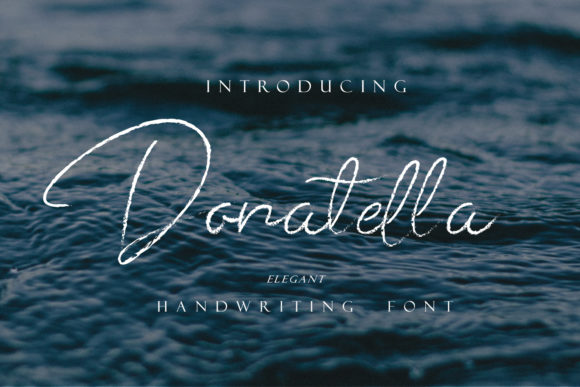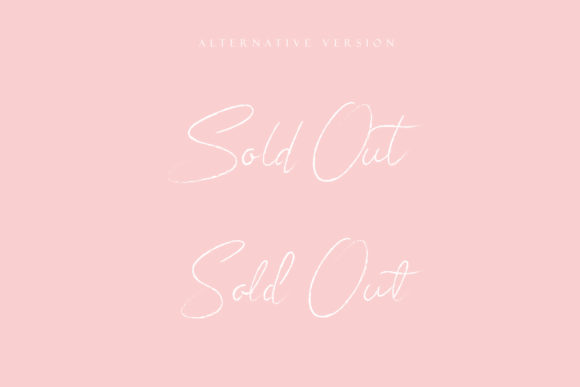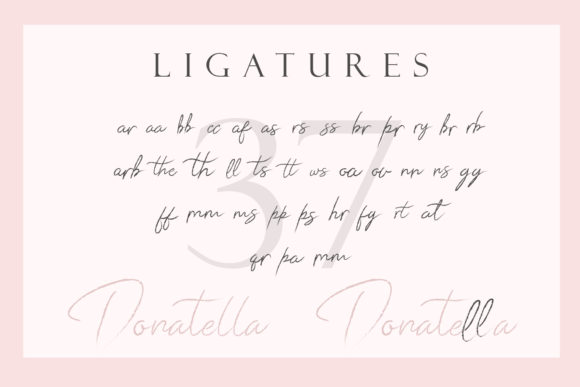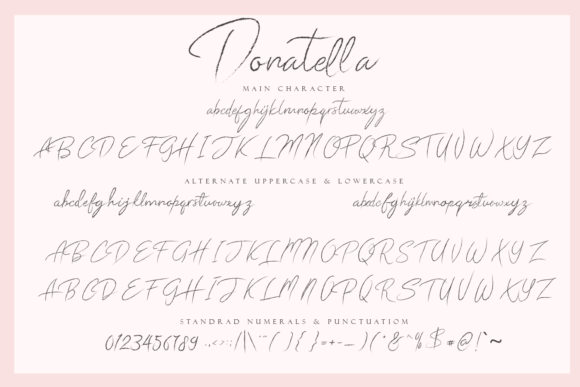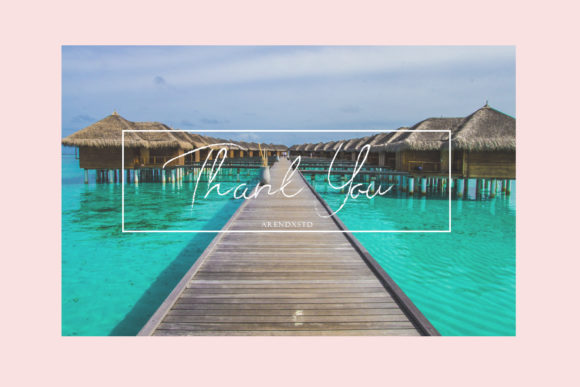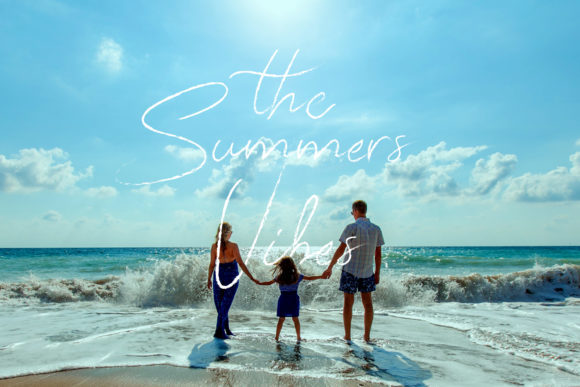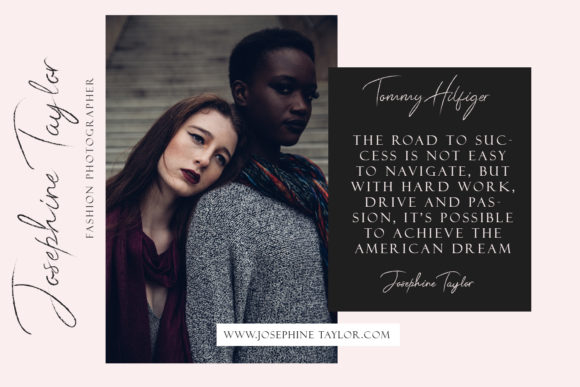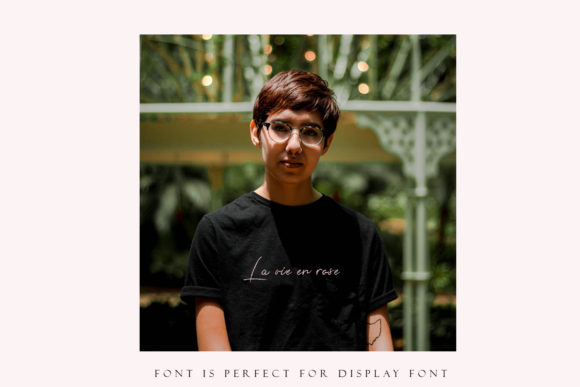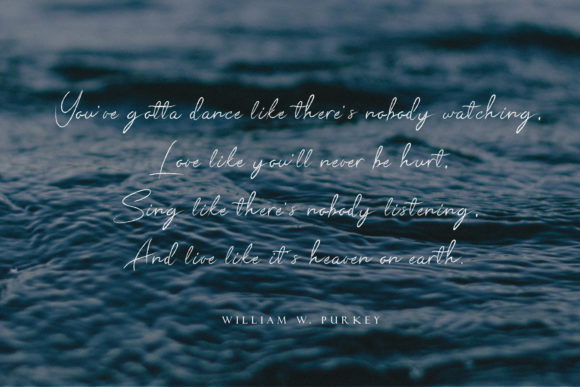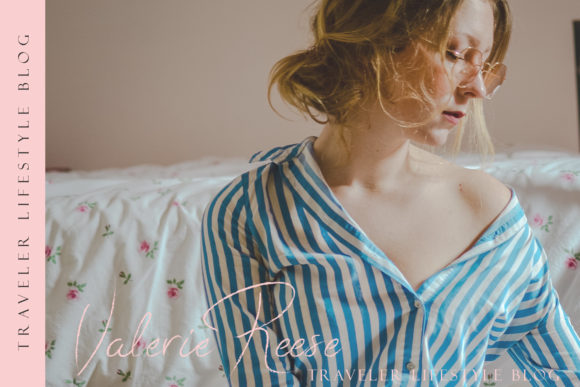
Donatella Font
Donatella is a truly versatile font – combining sophisticated, casual, and fun sides depending on the style you use. Get inspired by its lovely curves!